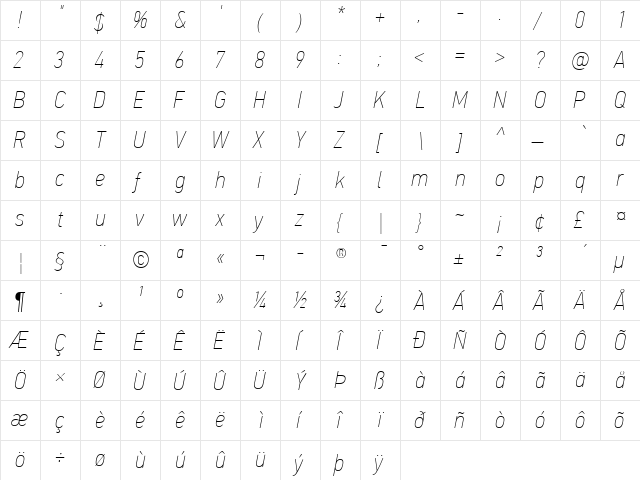
PF Din Text Cond Pro Extra Thin Italic Font Preview
Design Context for PF Din Text Cond Pro Typeface
PF Din Text Cond Pro takes a measured approach to typography — its balanced proportions and neutral character make it a reliable workhorse for both digital and print work. The dynamic lean of this cut emphasises speed and emphasis in any layout. The delicate stroke weight brings airiness and refinement to layouts. Its narrow stance lets it pack a punch even in space-constrained designs.
Pro Tip: Use PF Din Text Cond Pro for emphasis, pull quotes, and subheadings where its slanted energy can add rhythm to the layout.